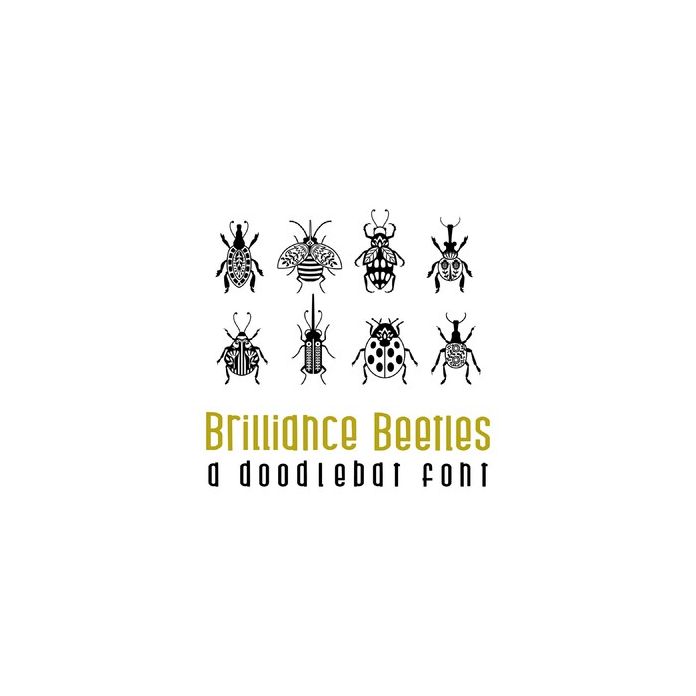
This fun doodlebat font features 26 floral decorative beetles and inspiration. Perfect for cards, gifts, decor, crafts, scrap book pages, planner stickers and more!